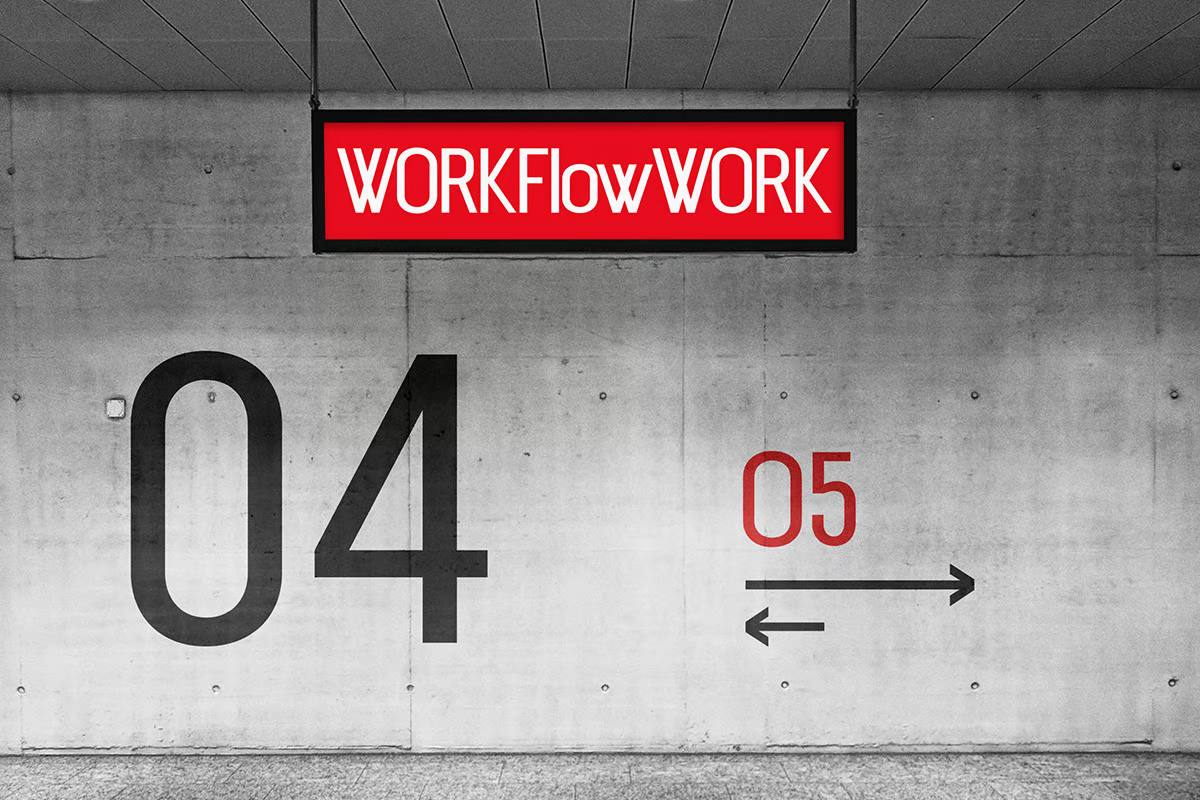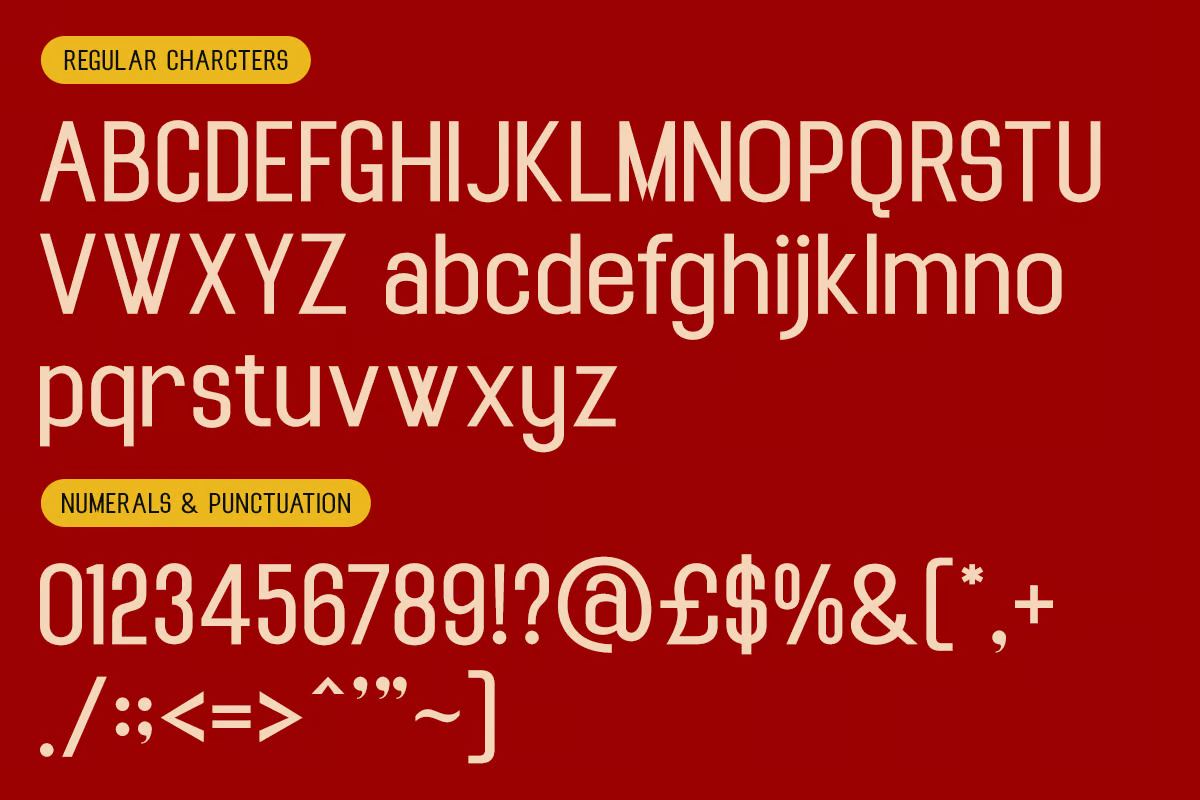
Tightrope is thin in width but not in weight. Vadova Studio drew tall, narrow letters with close spacing, and set the cover over red theatre curtains, which gives it a cinema poster feel. The cover calls it “a sans serif with condensed spacing”, designed in 2025.
The second preview is the most practical: a concrete wall with a big “04”, a red “05” and arrows, under a hanging “WORKFlowWORK” sign. That kind of wayfinding is where condensed type earns its keep. Upper and lowercase, numerals and punctuation are included in TTF and WOFF.
Best uses for Tightrope
- Wayfinding and office signage
- Film and theatre posters
- Magazine headlines
- Product labels
- Narrow web banners
Tightrope pairs well with Work Sans for body text, Libre Franklin for subtitles and Merriweather for a serif contrast.